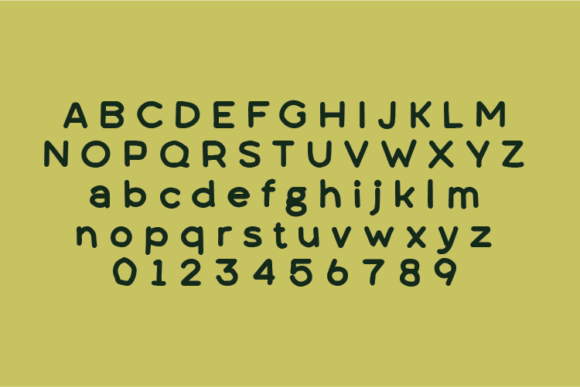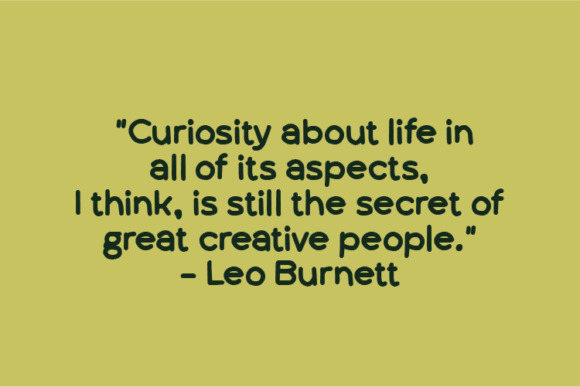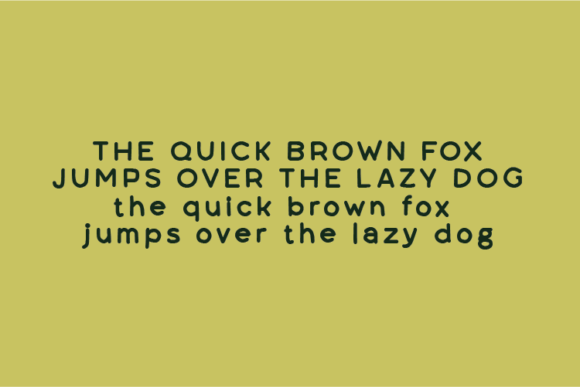
Introducing Avocado Brownies Font: The Unique Handwritten Style for Creative Designs
Are you tired of using the same old fonts for your designs? Look no further! Avocado Brownies Font is here to revolutionize your creative projects with its natural, handwritten style. This unique font is perfect for designers and crafters who want to add a personal touch to their work. In this article, we’ll dive into the features and benefits of Avocado Brownies Font and explore how it can elevate your designs.
What makes Avocado Brownies Font special?
Avocado Brownies Font is a natural handwritten font that boasts a distinctive characteristic: not a single node in each character’s indentation has been altered. This attention to detail makes the font incredibly interesting and unique, setting it apart from other handwritten fonts. The result is a font that exudes warmth, personality, and a sense of human touch.
Perfect for a variety of design projects
Avocado Brownies Font is an incredibly versatile font that can be used for a wide range of design projects. Here are some ideas to get you started:
- Quotes and typography: Add a personal touch to your quotes and typography projects with Avocado Brownies Font. The font’s natural, handwritten style makes it perfect for conveying emotions and adding a human touch to your designs.
- Notes and journals: Create beautiful and unique notes and journals with Avocado Brownies Font. The font’s distinctive style makes it perfect for adding a personal touch to your journaling and note-taking projects.
- T-shirts and apparel: Take your t-shirt and apparel designs to the next level with Avocado Brownies Font. The font’s bold and eye-catching style makes it perfect for creating unique and memorable designs.
- Product design: Use Avocado Brownies Font to add a personal touch to your product designs. The font’s natural, handwritten style makes it perfect for creating unique and eye-catching packaging, labels, and more.
Benefits of using Avocado Brownies Font
So why choose Avocado Brownies Font for your design projects? Here are just a few benefits of using this unique font:
- Unique and distinctive style: Avocado Brownies Font boasts a unique and distinctive style that sets it apart from other fonts. Use it to add a personal touch to your designs and make them stand out.
- Easy to read: Despite its unique style, Avocado Brownies Font is incredibly easy to read. This makes it perfect for use in body text, headings, and more.
- Versatile: Avocado Brownies Font can be used for a wide range of design projects, from quotes and typography to notes and product design.
- High-quality: Avocado Brownies Font is a high-quality font that is designed to deliver exceptional results. With its clear and crisp lines, it’s perfect for use in both digital and print designs.
- Experiment with different sizes: Avocado Brownies Font looks great in a variety of sizes, from small and delicate to large and bold. Experiment with different sizes to find the one that works best for your design.
- Pair it with other fonts: Avocado Brownies Font pairs well with a variety of other fonts. Try pairing it with a clean and simple font for a striking contrast.
- Use it for headings and titles: Avocado Brownies Font is perfect for use in headings and titles. Its bold and eye-catching style makes it perfect for grabbing attention and adding a personal touch to your designs.
Avocado Brownies Font is a unique and versatile font that is perfect for designers and crafters who want to add a personal touch to their work. With its natural, handwritten style and distinctive characteristics, it’s perfect for a wide range of design projects. Whether you’re creating quotes, notes, t-shirts, or product designs, Avocado Brownies Font is sure to elevate your work and make it stand out. So why wait? Download Avocado Brownies Font today and start creating unique and eye-catching designs!